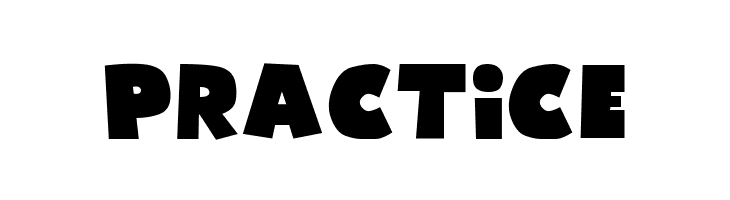
A playful, handwritten font with a smooth, flowing style.
A jagged, scratch-like font with a raw, edgy aesthetic.
A dripping, horror-themed font with jagged, melting characters.
Bold, rounded font with a playful, modern aesthetic.
A bold, playful font with rounded, bubbly characters perfect for fun and whimsical designs.
A bold, playful font with exaggerated curves and a whimsical style.
A bold, italic font with a dynamic, comic book style.
A bold, star-patterned decorative font ideal for creative projects.
A bold, italicized decorative font filled with star patterns, perfect for playful designs.